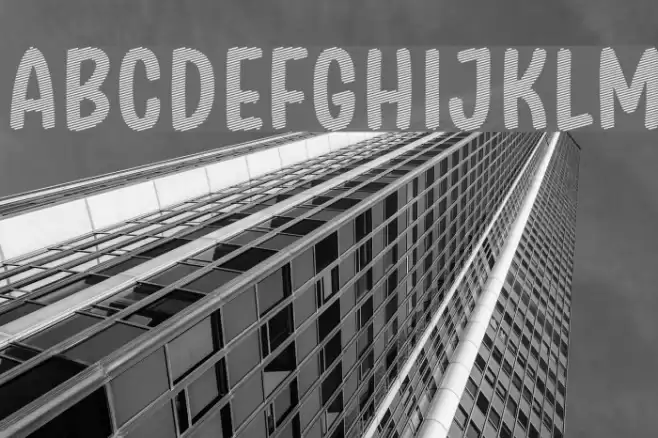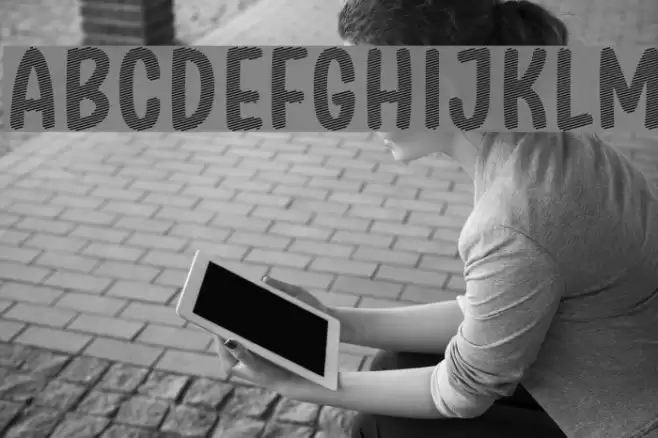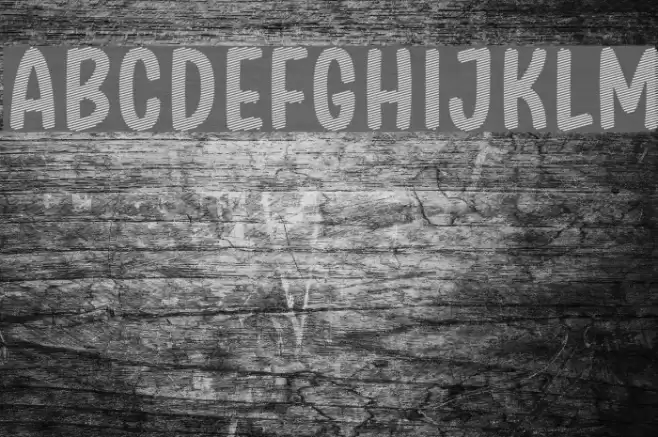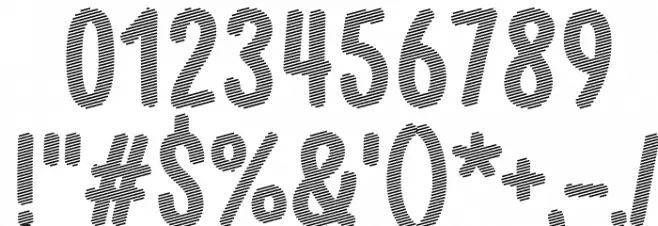
Stripe October Seven Font
Stripe October Seven Description
This font features a bold, decorative style with a unique striped pattern running diagonally across each character. The uppercase and lowercase letters, as well as numbers and special characters, maintain a consistent design that emphasizes a playful yet structured appearance. The stripes add a dynamic texture, making the font stand out and catch the eye. Its boldness and distinct pattern make it suitable for creative projects where a strong visual impact is desired. The characters are well-proportioned, with a slight slant that adds to the dynamic feel of the font.
A bold, decorative font with a unique diagonal striped pattern from Uncategorized fonts.
- Proposed Projects: Ideal for posters, branding, headlines, and any design needing a bold, eye-catching typeface.